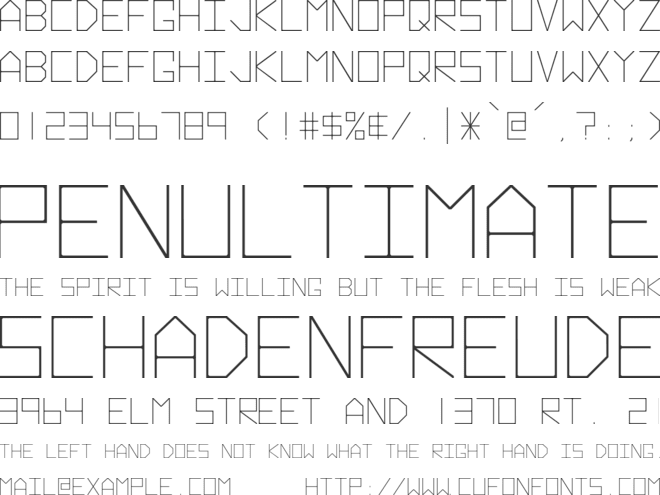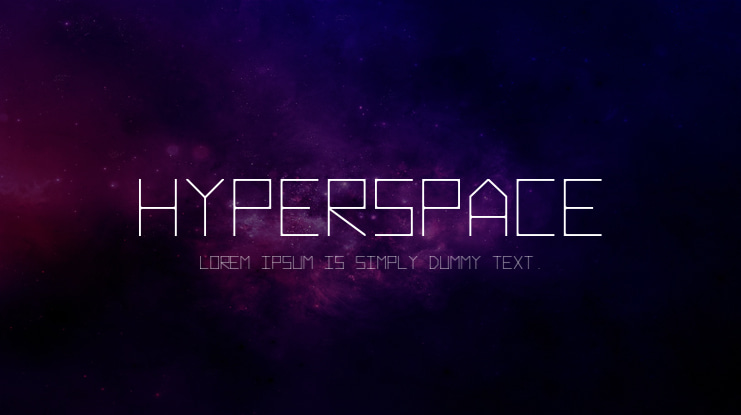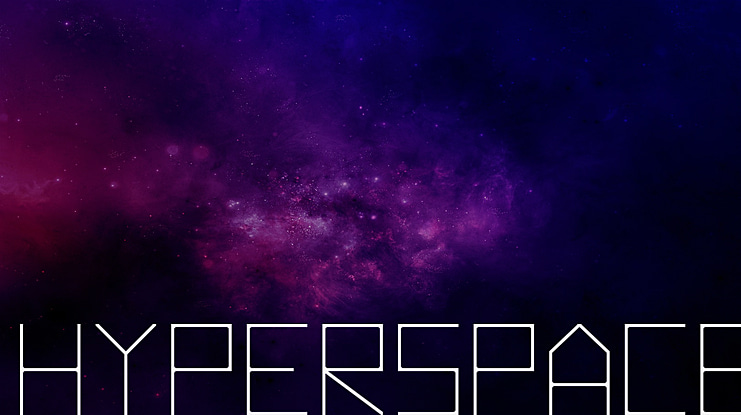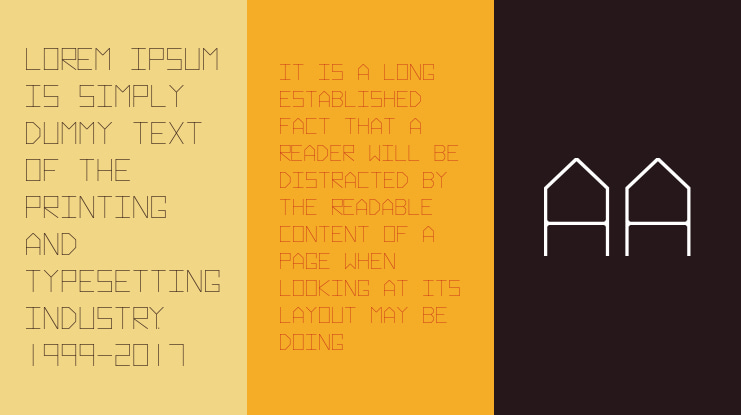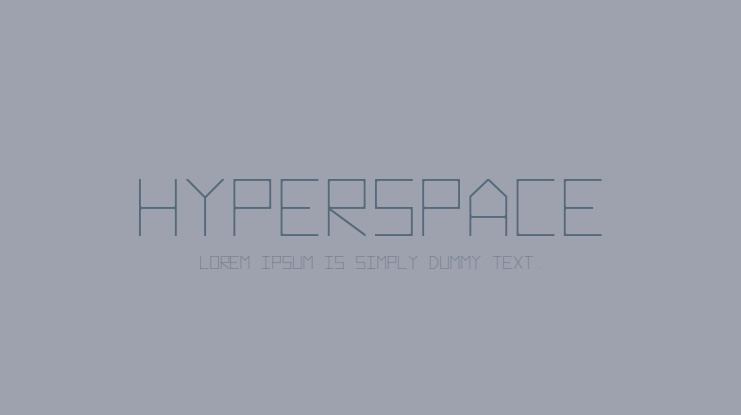
Hyperspace Font Family
Neale Davidson
Based on the original Atari vector font from Battlezone, Asteroids, and several other classic games. All caps font, includes accent characters, punctuation, and Euro. Includes bold and italic versions.